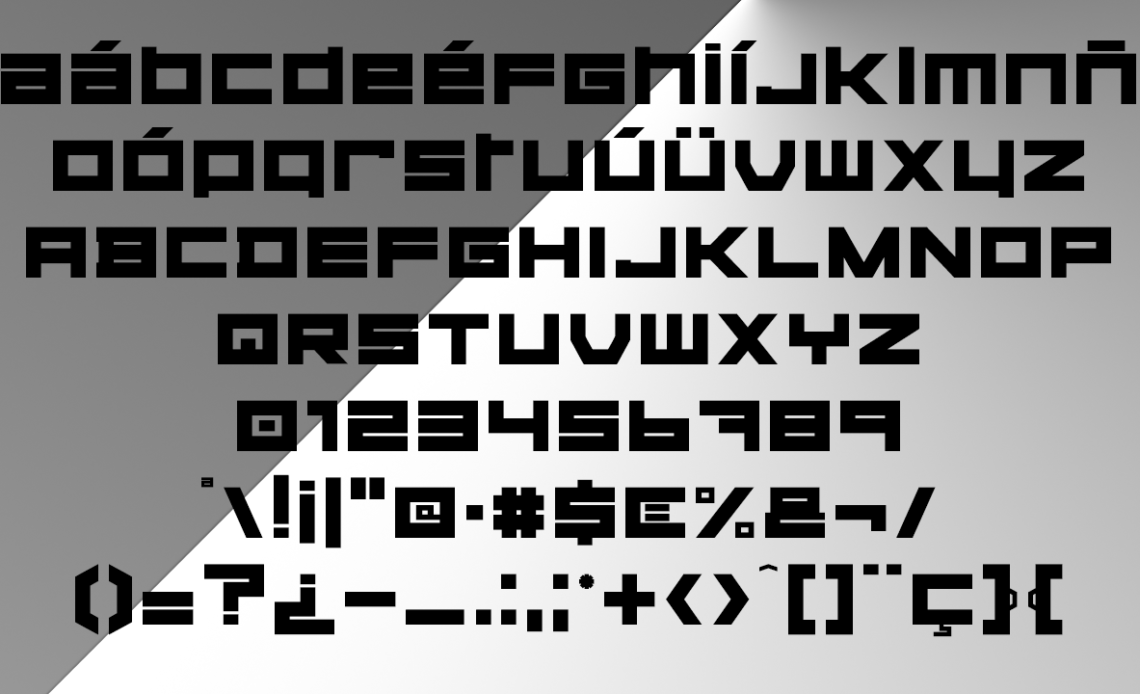
Basica Font - A Timeless Sans Serif for Powerful Communication
In a world saturated with fleeting trends, there lies a font with a timeless and enduring presence - Basica Font, a bold and confident sans serif creation from Qbotype Fonts. This remarkable font family transcends the boundaries of ordinary typography, offering a symphony of elegance and versatility. Its strong character and unwavering presence make it an ideal choice for designers, marketers, and individuals seeking to leave an indelible mark.
Step into the world of Basica and immerse yourself in a realm where clarity, precision, and impact converge. This meticulously crafted font family exudes professionalism and authority, effortlessly commanding attention and conveying your message with unwavering conviction. With its clean lines and purposeful curves, Basica Font ensures that your words carry weight, delivering a message that resonates deeply with your audience.
Discover the boundless possibilities that await you with Basica Font. Its comprehensive character set, encompassing 260 glyphs, including uppercase, lowercase, numbers, and symbols, empowers you to craft diverse and captivating designs. Whether you're creating logos, branding materials, website layouts, or eye-catching social media posts, Basica Font adapts seamlessly to your creative vision, transforming your ideas into visually stunning realities.
Unleash your creativity and embark on a journey of self-expression with Basica Font. Its versatile nature lends itself effortlessly to a myriad of design aesthetics, from minimalist and modern to retro and vintage. Allow Basica Font to amplify your brand's identity, injecting a touch of sophistication and flair into every project you undertake. Discover the endless possibilities that await you as you explore the depths of this exceptional sans serif font family.